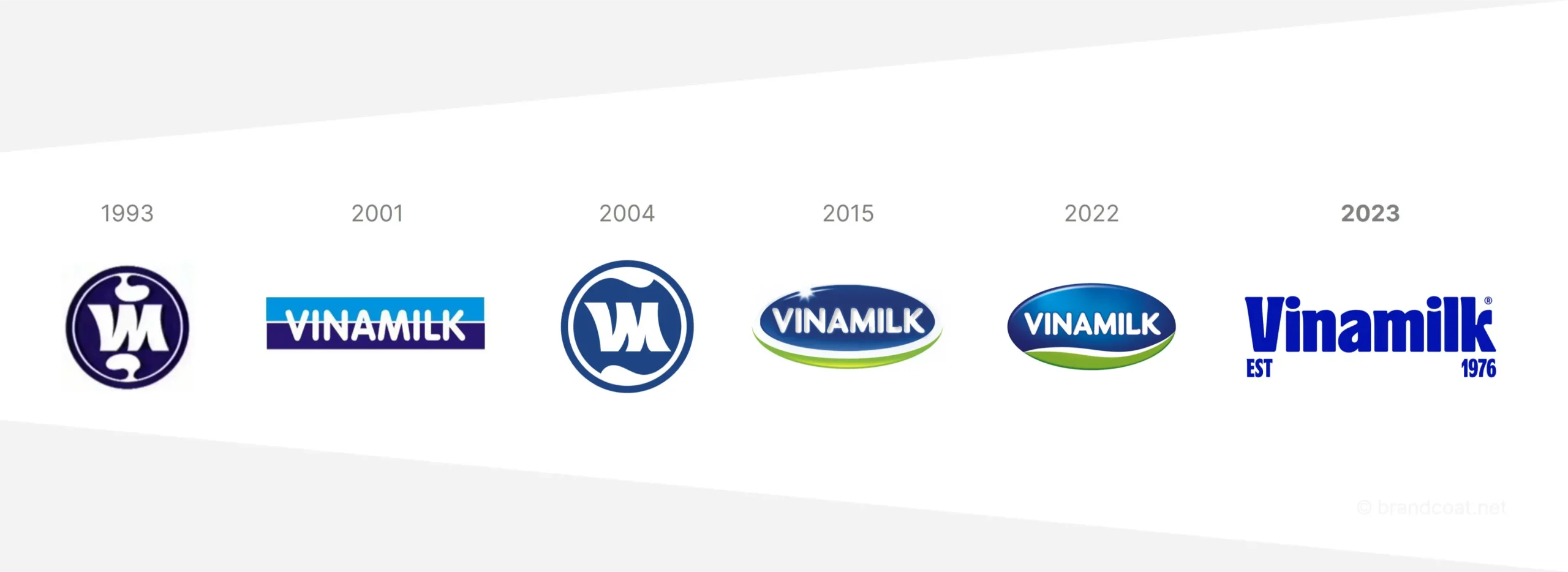
Vinamilk, Vietnam’s national milk brand, has launched an impressive media campaign with a remarkable brand repositioning after nearly five decades of consumer association. The key element of this strategy is the introduction of a new logo featuring a simple yet sophisticated font, capturing attention and excitement across a broad online community.
Founded in 1976, Vinamilk stands as Vietnam’s leading dairy company, operating more than 20 factories and farms nationwide. Vinamilk offers a wide range of products, including fresh milk, yogurt, cheese, and nutritional products for both children and adults, solidifying its reputation as a prestigious and top-quality brand.
Although there are many big names or imported foreign milk brands on the market, Vinamilk still maintains its position in the dairy industry in Vietnam. With affordable prices, delicious taste and high nutrition, Vinamilk’s dairy products have become a familiar part, nourishing all adults and are a national “milk” dish that almost everyone has used.
Brand Repositioning in 2023
On July 6, 2023, Vietnam Dairy Products Joint Stock Company (Vinamilk) officially announced and embarked on a new phase of its branding journey. Vinamilk’s brand identity project is led by a world-class creative team: Megan Bowker (Vinamilk’s Creative Director) in collaboration with brand strategy expert Karin Fyhrie of Sovereign Objects. In addition, an exclusive font system called VNM, developed by the cooperation of Duy Dao (Studio DUY) and Yellow Type Foundry. This pioneering project features three typefaces: VNM Display, VNM Standard, and VNM Text. This comprehensive typographic system clearly expresses the Vinamilk brand identity with a modern and professional flair.
1. Logo:
The standout feature of Vinamilk’s new logo is the shift from an emblem to a wordmark. Moving away from the stylized image of a green lawn and blue sky with the words Vinamilk in the middle, the new logo focuses solely on the robust, white “Vinamilk” text and symbols “EST” and “1967” – is the year of birth of this milk brand. Design experts note that this new logo exudes a modern, youthful look, creating a distinctive impression and positioning Vinamilk as the sole dairy brand with an exclusive typeface.
2. Color:
Blue serves as the primary color for the new logo, symbolizing trust, safety, and a commitment to product quality. This color choice also evokes the vast sky and ocean, reflecting Vinamilk’s aspiration to expand and conquer new heights.
3. Modern Vinamilk Font
The VNM font, specifically designed for the new logo, exemplifies professionalism and the blend of tradition and modernity, aligning with Vinamilk’s brand positioning. This innovation extends beyond custom typefaces to include refined typographic approaches and layouts. VNM’s visual language has become more appealing, fully expressing the brand’s personality. The uniformity of fonts across brand identities, such as packaging and websites, ensures easy recognition and recall for customers.
– VNM Display: An outstanding display font used for titles, signs, and logos.
– VNM Standard: A standard font applied to main text in publications and documents.
– VNM Text: A font designed for long, easy-to-read text, ensuring viewer comfort.
The introduction of the VNM font in Vinamilk’s 2023 brand repositioning strategy has yielded significant benefits, reinforcing its status as Vietnam’s leading brand and highlighting Vinamilk’s clear strategic vision.
1. Enhance Brand Recognition
The consistent application of the VNM font across all publications—from product packaging and websites to advertising and media materials—creates a professional, cohesive, and easily identifiable brand image in consumers’ minds.
2. Enhance Brand Value
VNM represents more than just a font; it symbolizes Vinamilk’s modernity, sophistication, and class. The use of the VNM font showcases Vinamilk’s meticulous investment in its brand image, thereby enhancing brand value in the eyes of customers.
3. Community Engagement :
The campaign encouraging users to create their own name logos in the Vinamilk style has sparked an engaging trend on social networks, drawing substantial community participation. This effective marketing strategy helps Vinamilk reach potential customers, widely spread its brand image, and increase customer interaction.
4. Strengthen Customer Trust and Loyalty
The VNM font fosters a consistent and professional brand experience, thereby strengthening customer trust and loyalty. Customers perceive Vinamilk as a reputable, quality brand that always strives to provide the best consumer experience.
5. Attract Young Customers
The modern, youthful design of the VNM font appeals to young people—Vinamilk’s potential customers. Using this font in communication campaigns targeting young audiences enhances recognition and builds a dynamic, creative brand image among this demographic.
6. Open Up New Development Potential